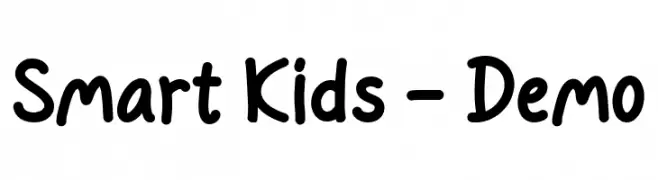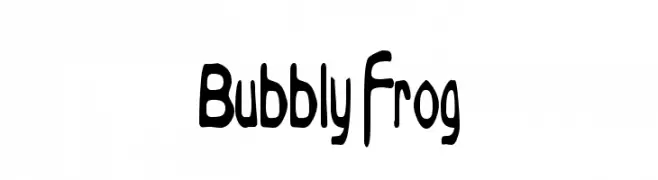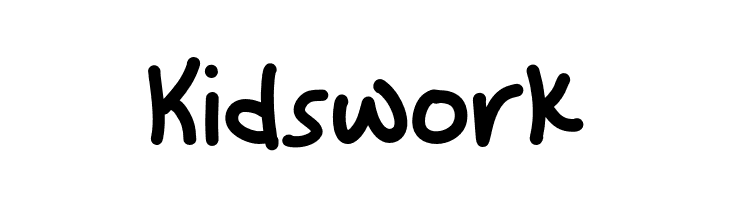
A playful, casual handwritten font with rounded, irregular letterforms.
A playful, hand-drawn font with rounded, slightly irregular characters.
A playful, rounded font with a childlike, handwritten style.
Playful, bold hand-drawn display font.
Playful handwritten font ideal for kids' designs.
Playful, rounded sans-serif with a hand-drawn, friendly look.
A playful, bold font with a cartoon-like, bubbly style.
A bold, hand-drawn font with a playful and artistic style.